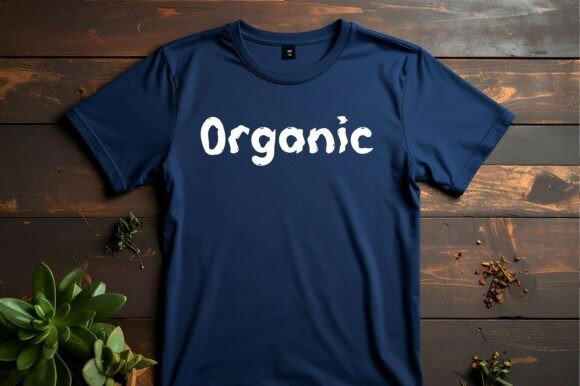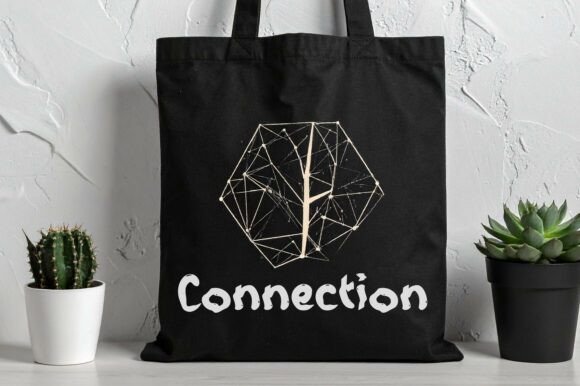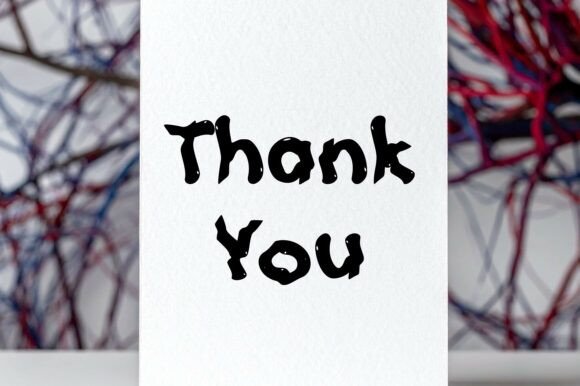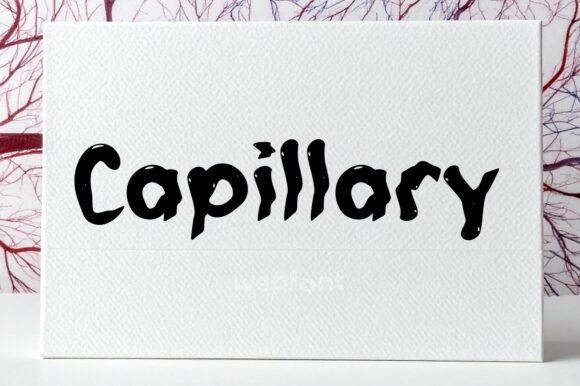
Unveiling Capillary: The Handwritten Font that Embodies Artisanal Charm
In the realm of typography, few fonts manage to strike a balance between intricate artistry and meticulous details. Capillary, a bespoke handwritten font, is one such gem that not only echoes its namesake but also brings a touch of heartfelt authenticity to the world of design. With each stroke possessing an irregular, brush-stroked character, Capillary presents a unique narrative that is both coherent and distinct.
The Art of Imperfection: What Makes Capillary Stand Out
Capillary’s beauty lies in its imperfections. Slight disparities in width and surface detailing give the font a genuine, human touch that exudes a comforting warmth and authenticity. This artisanal charm makes it an ideal choice for designers and crafters looking to champion handcrafted goods, green initiatives, personalized blogs, creative stationery, or any endeavor requiring a distinctive, emotive, and subtly artistic typeface.
Embracing the Quintessence of Natural Elegance
Capillary’s unique allure is rooted in its ability to encapsulate the quintessence of natural elegance. The font’s intricate connections and irregular strokes evoke a sense of organic beauty, reminiscent of handcrafted products and the natural world. Whether you’re designing a label for a handmade product or creating a brand identity for an eco-friendly initiative, Capillary’s natural elegance shines through.
The Power of Emotional Connection: How Capillary Touches Hearts
Typography has the power to evoke emotions and create connections. Capillary’s intimate and minutely detailed persona makes it an excellent choice for designers seeking to create an emotional connection with their audience. The font’s subtle artisticity and understated charm allow it to enthrall audiences without overpowering them. This delicate balance makes Capillary an excellent choice for personalized blogs, creative stationery, and other applications where a touch of warmth and authenticity is desired.
Design Applications: Where Capillary Shines
Capillary’s versatility makes it an excellent choice for various design applications. Some of the areas where Capillary excels include:
- Handcrafted Goods: Capillary’s artisanal charm and natural elegance make it an ideal choice for labeling handcrafted products, such as artisanal foods, handmade jewelry, or crafted home decor.
- Green Initiatives: The font’s eco-friendly and organic feel makes it a great fit for branding and marketing materials for green initiatives, sustainable products, and environmentally conscious campaigns.
- Personalized Blogs: Capillary’s unique allure and emotional resonance make it an excellent choice for personal blogs, where a touch of warmth and authenticity can help build a strong connection with readers.
- Creative Stationery: The font’s intricate artistry and subtle artisticity make it perfect for designing creative stationery, such as greeting cards, invitations, and journals.
Conclusion: The Timeless Appeal of Capillary
In a world where digital communication dominates, Capillary offers a refreshing respite with its human touch and artisanal charm. This bespoke handwritten font is more than just a typography – it’s an experience that evokes emotions, creates connections, and tells a story. Whether you’re a designer, crafter, or simply someone who appreciates the beauty of typography, Capillary is sure to enthrall you with its intimate and minutely detailed persona.
As a testament to the power of typography, Capillary stands out as a prime selection for anyone seeking to add a touch of elegance, authenticity, and emotional resonance to their design. Its unique allure, natural elegance, and artisanal charm make it an excellent choice for a wide range of applications. With Capillary, you can create a lasting impression that resonates with your audience and leaves a lasting impact.